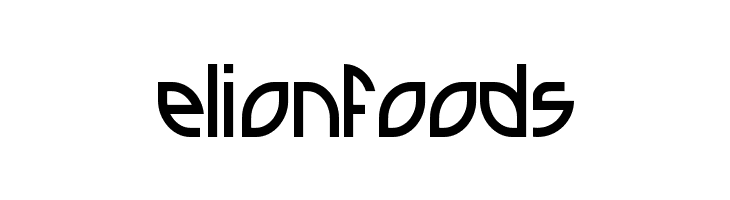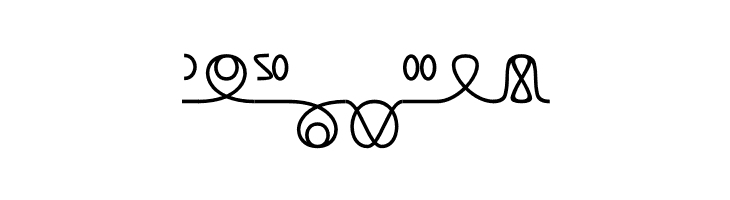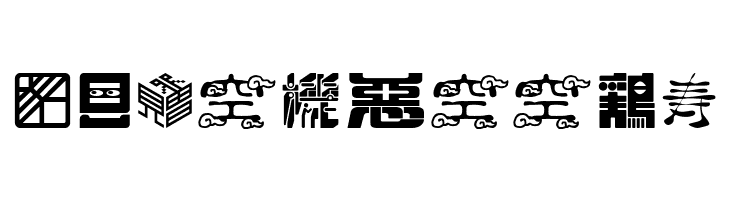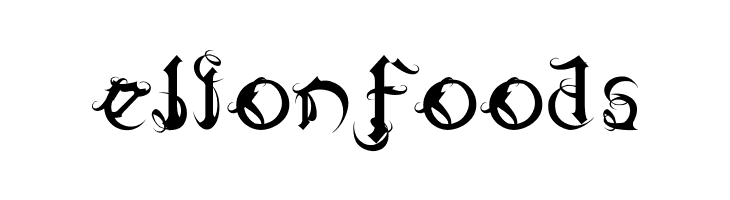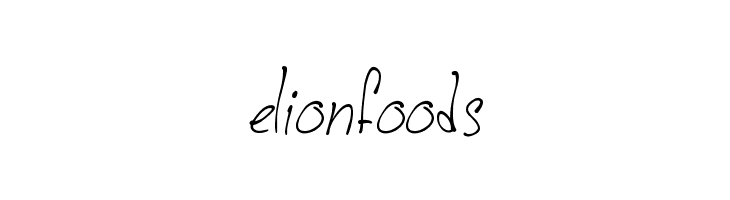
A bold, decorative font with fluid, organic shapes and a whimsical style.
A decorative font inspired by traditional Chinese dragons, featuring intricate and bold designs.
A classic serif font with a historical and elegant design.
A decorative and abstract font with intricate loops and curves, ideal for artistic projects.
A decorative and eclectic font with unique, artistic characters and symbols.
A futuristic, bold font with geometric shapes and sharp angles.
A whimsical, handwritten font with a playful and dynamic style.